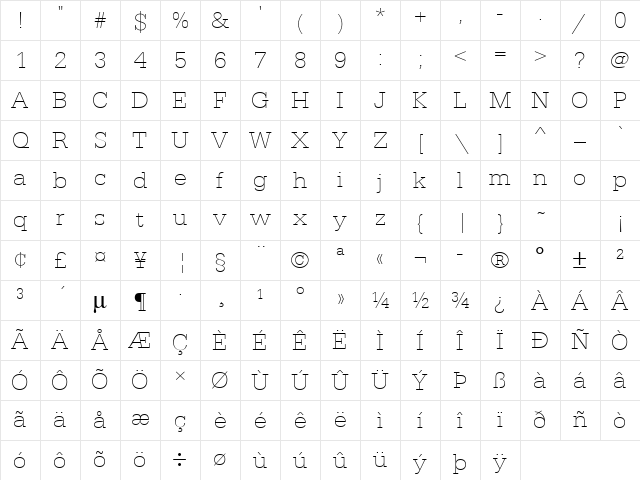
URWEgyptienneTExtLigWid Regular
URWEgyptienneTExtLigWid Family
Complete URWEgyptienneTExtLigWid Regular glyph index. Displaying only characters natively supported by URWEgyptienneTExtLigWid Regular font.
Design Context for URWEgyptienneTExtLigWid
URWEgyptienneTExtLigWid is a composed and adaptable typeface that performs quietly and consistently across a wide range of design contexts.